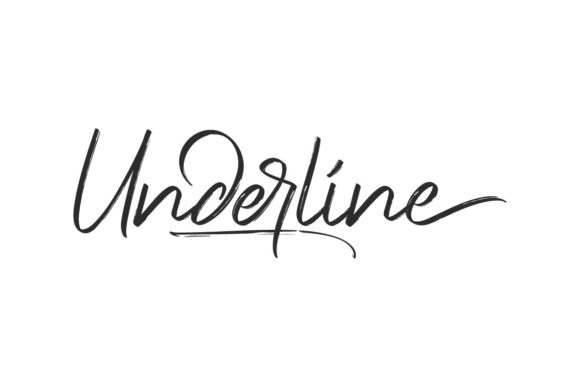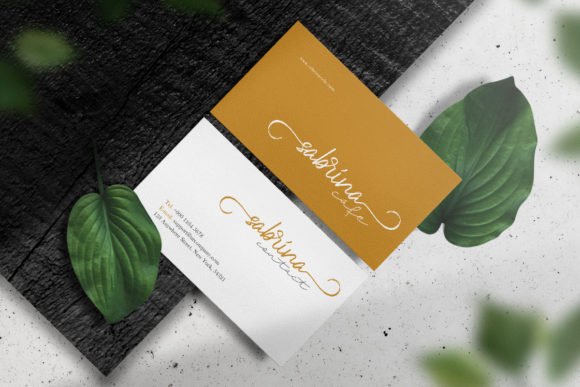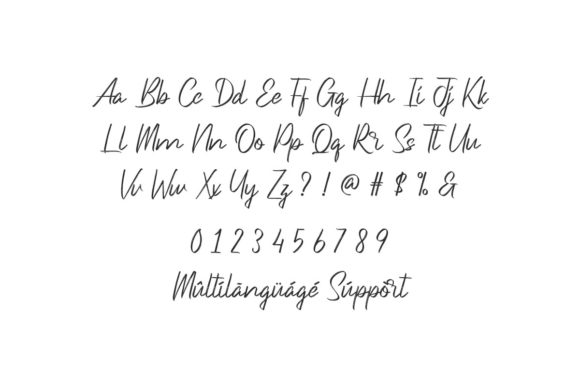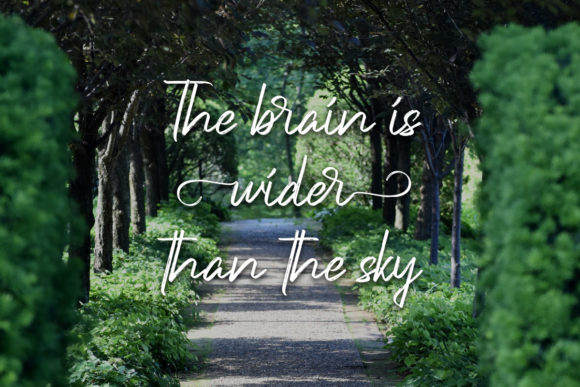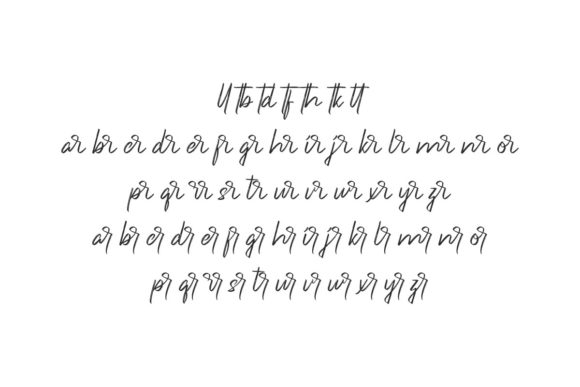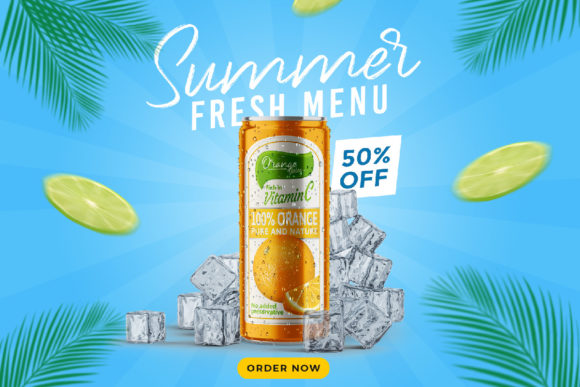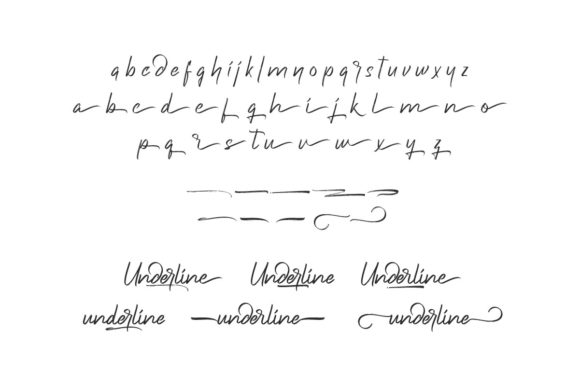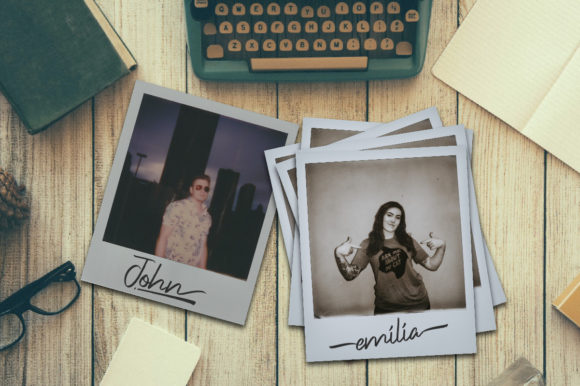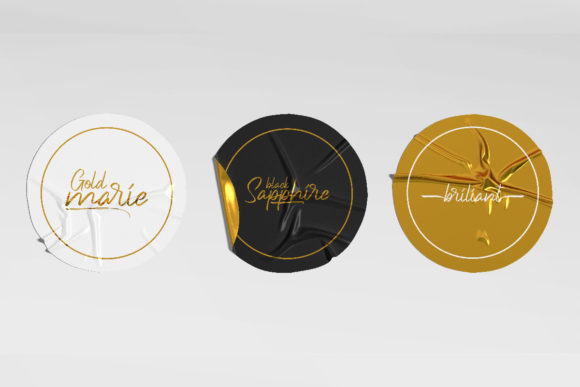
Underline Font
About Underline Font
Underline is a brushed script font carefully created with a touch of elegance. This font is PUA encoded which means you can access all of the glyphs and swashes with ease!